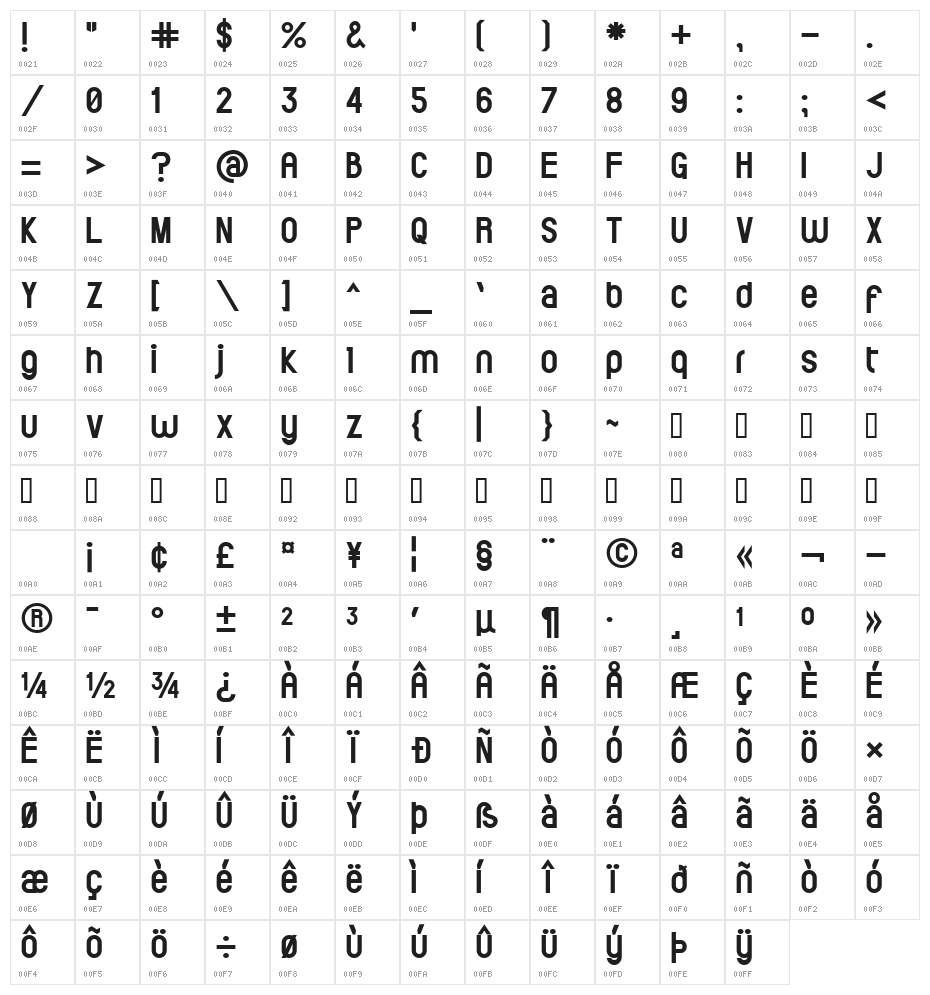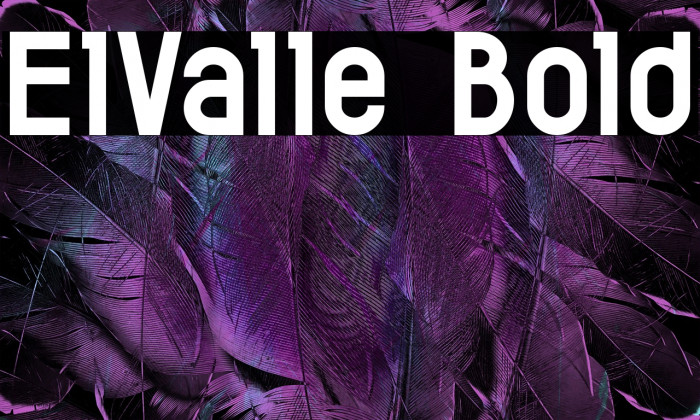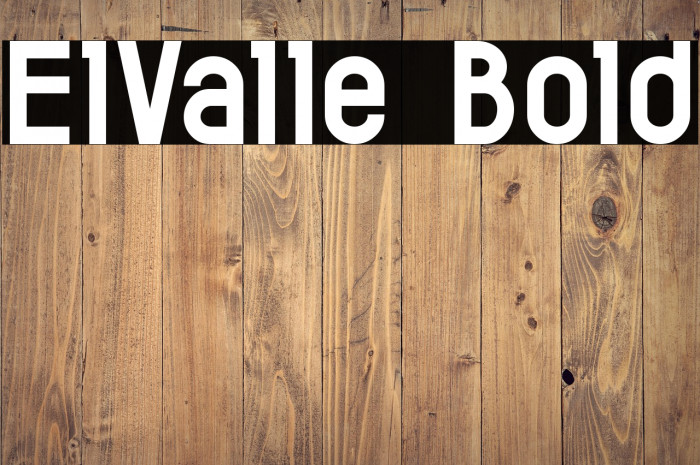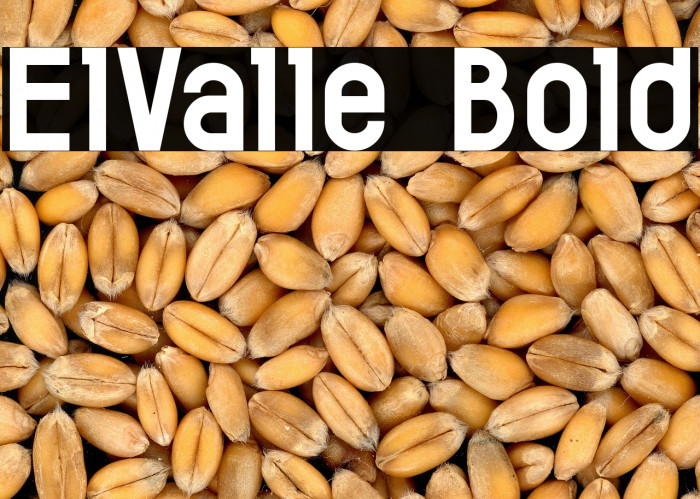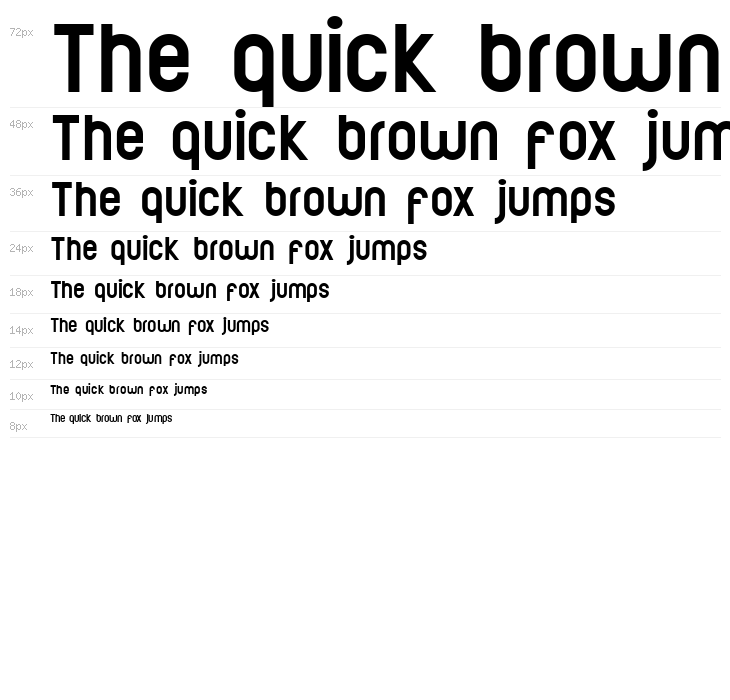
ElValle Bold Font
ElValle Bold Description
This font features a bold and modern sans-serif style with clean lines and a geometric structure. The uppercase letters are uniform in height, while the lowercase letters maintain a consistent x-height, contributing to a balanced appearance. The numerals are clear and easily distinguishable, making them suitable for various applications. The special characters are well-integrated, maintaining the overall aesthetic of the font. Its bold weight and straightforward design make it highly legible, even at smaller sizes.
| Use Case | Headlines, Logos, Digital Interfaces |
| Proposed Projects | Ideal for branding, advertising, headlines, and digital interfaces where clarity and impact are essential. |